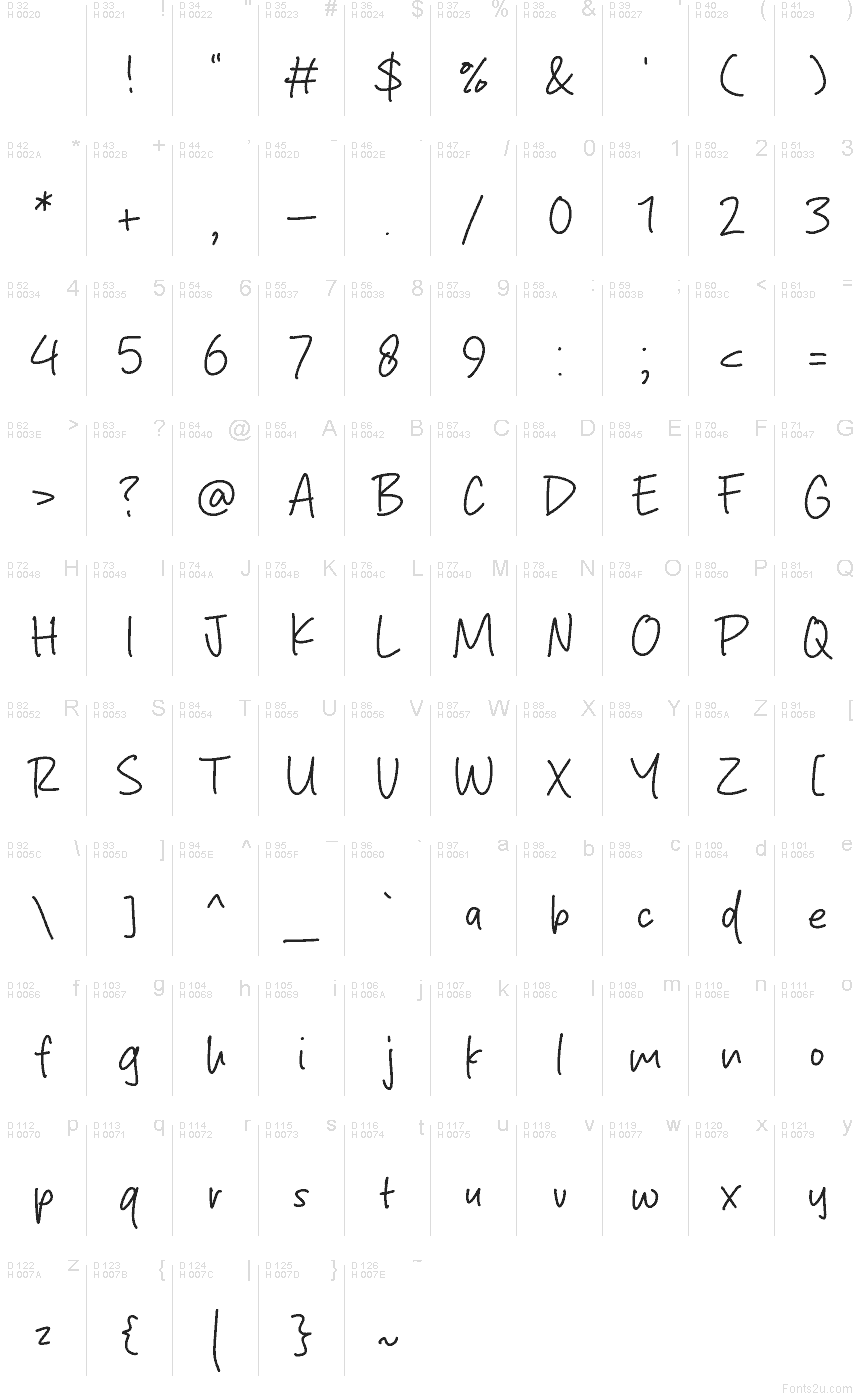
Delight Signature
Delight Signature font by Origin Type is a free handwritten font that captures the ease of a quick note while staying clean and readable. Its slightly uneven strokes, loose spacing, and inky, pen-on-paper feel give your layouts a human touch without turning messy or childish. The letters connect visually as a set, so even longer words look like a confident signature rather than scattered handwriting.
Using Delight Signature, you can add warmth to logos, social media graphics, packaging, invitations, quote posts, and lifestyle branding. This free font shines on anything that needs to feel personal yet polished—think boutique products, planners, or creator merch. For a simple combo, pair it with a light, neutral sans serif for body text and keep Delight Signature for headings or short phrases at larger sizes so its casual texture really shows.